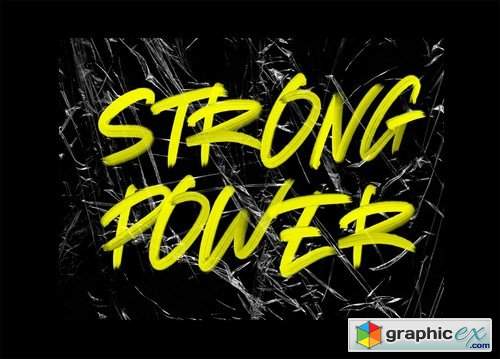
Redrock SVG Brush Font
Redrock is a strong SVG Handwritten Brush font with detailed textures so it looks good to implement in various designs of your project and your design interests be it for logos, branding names, posters, podcasts and so on. This is perfect for you all.